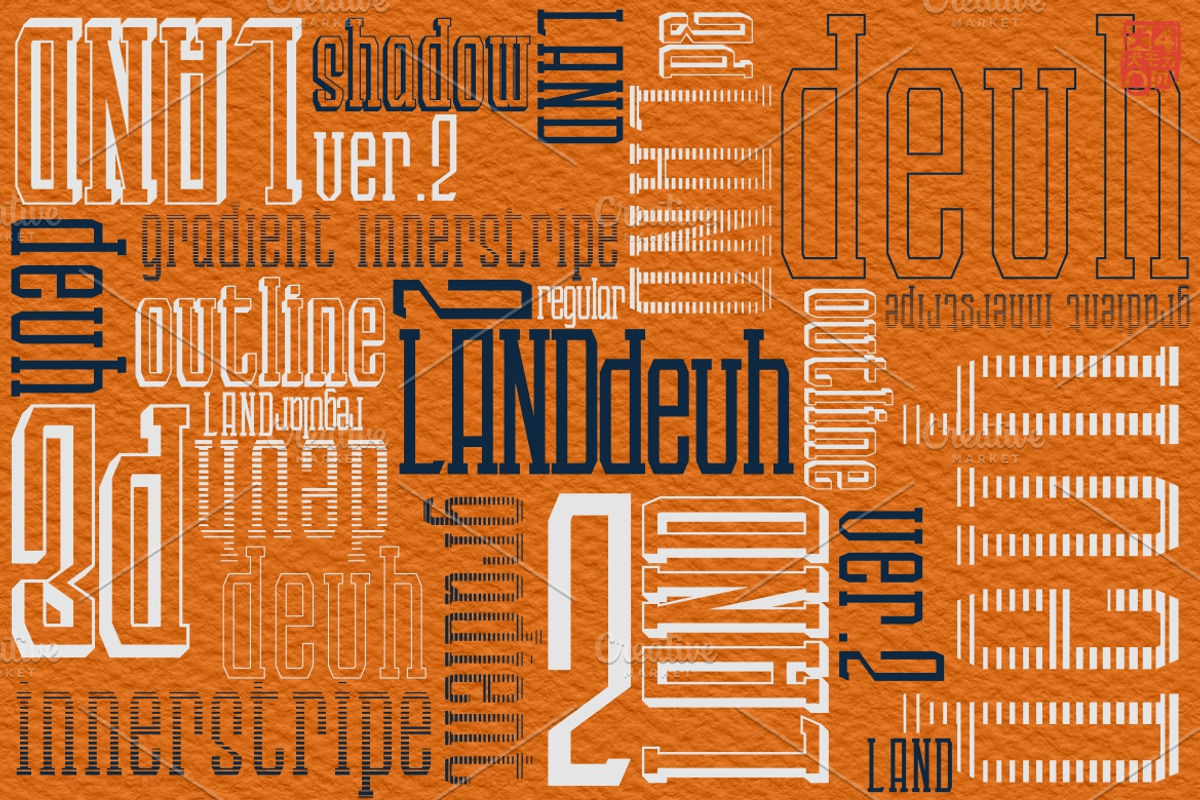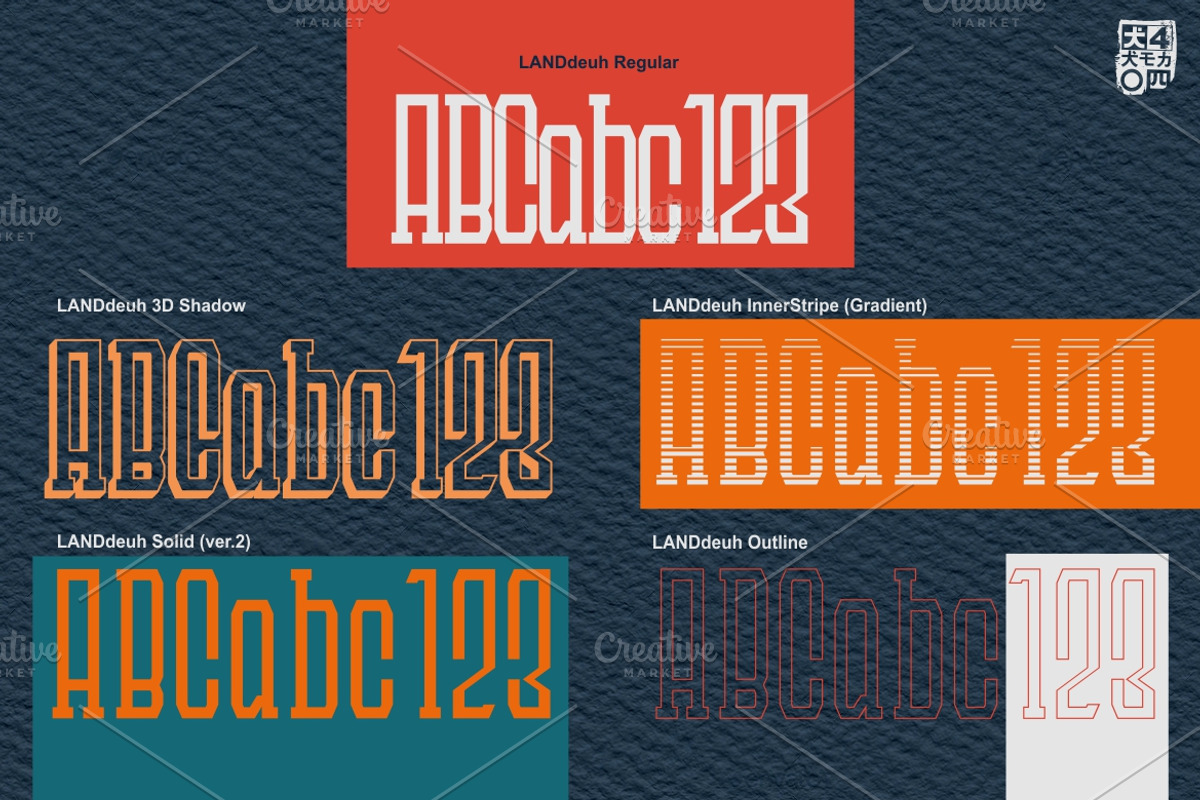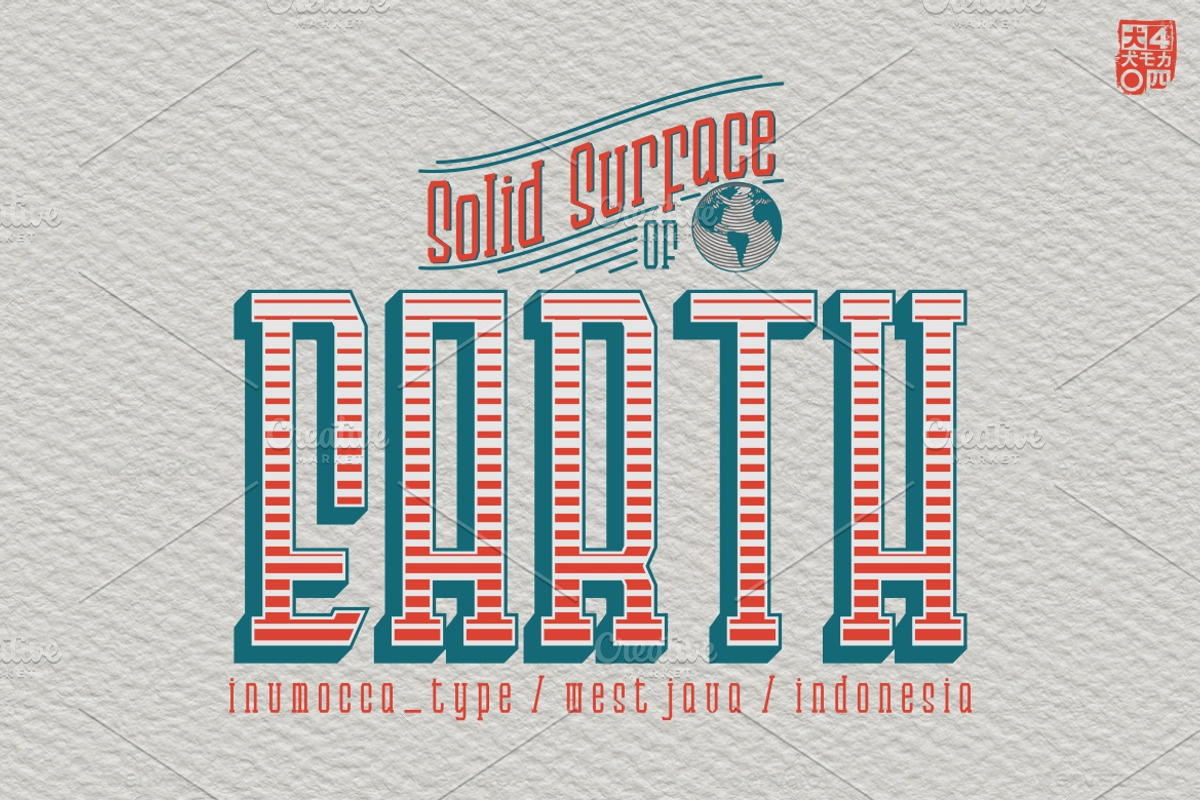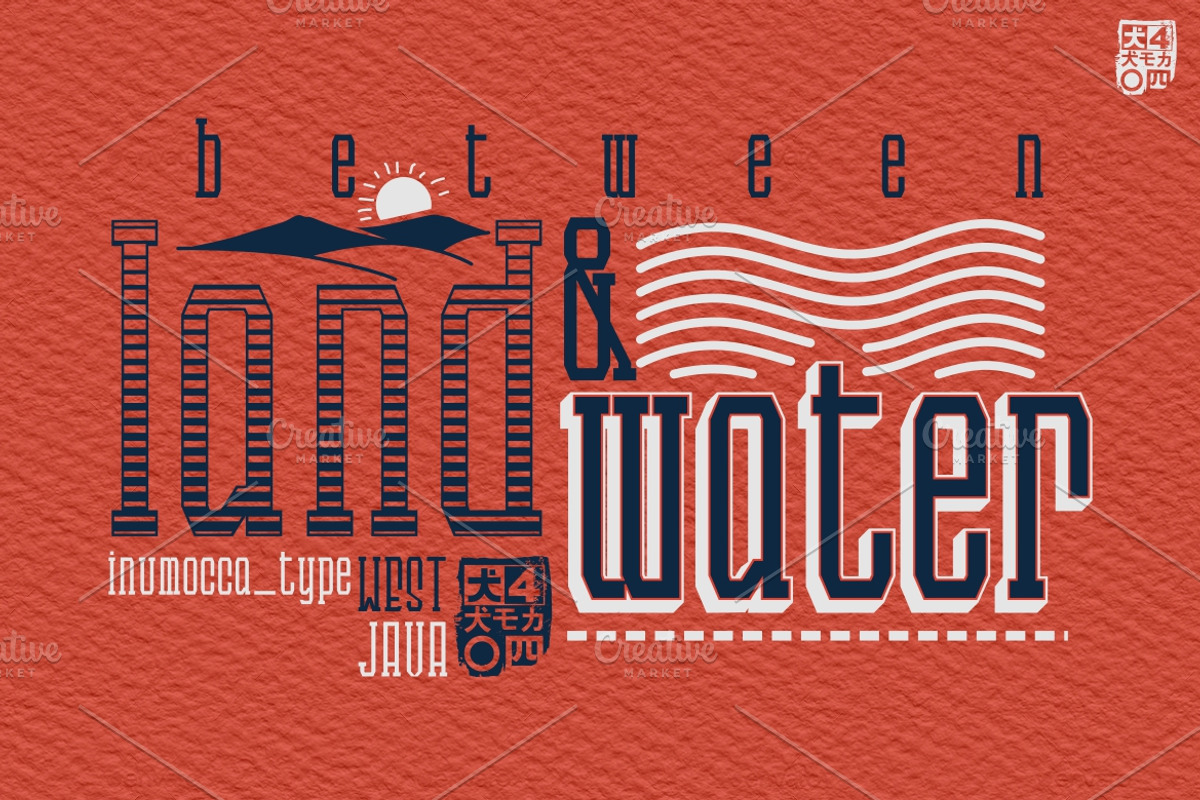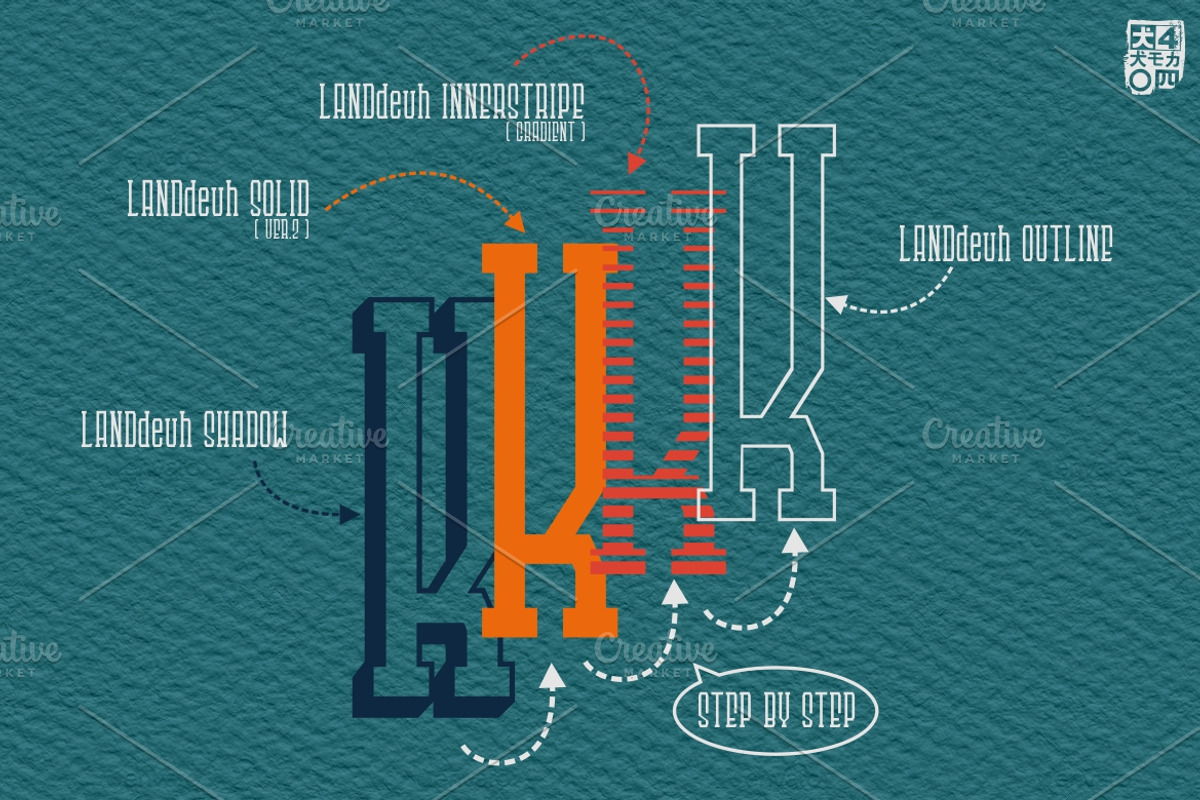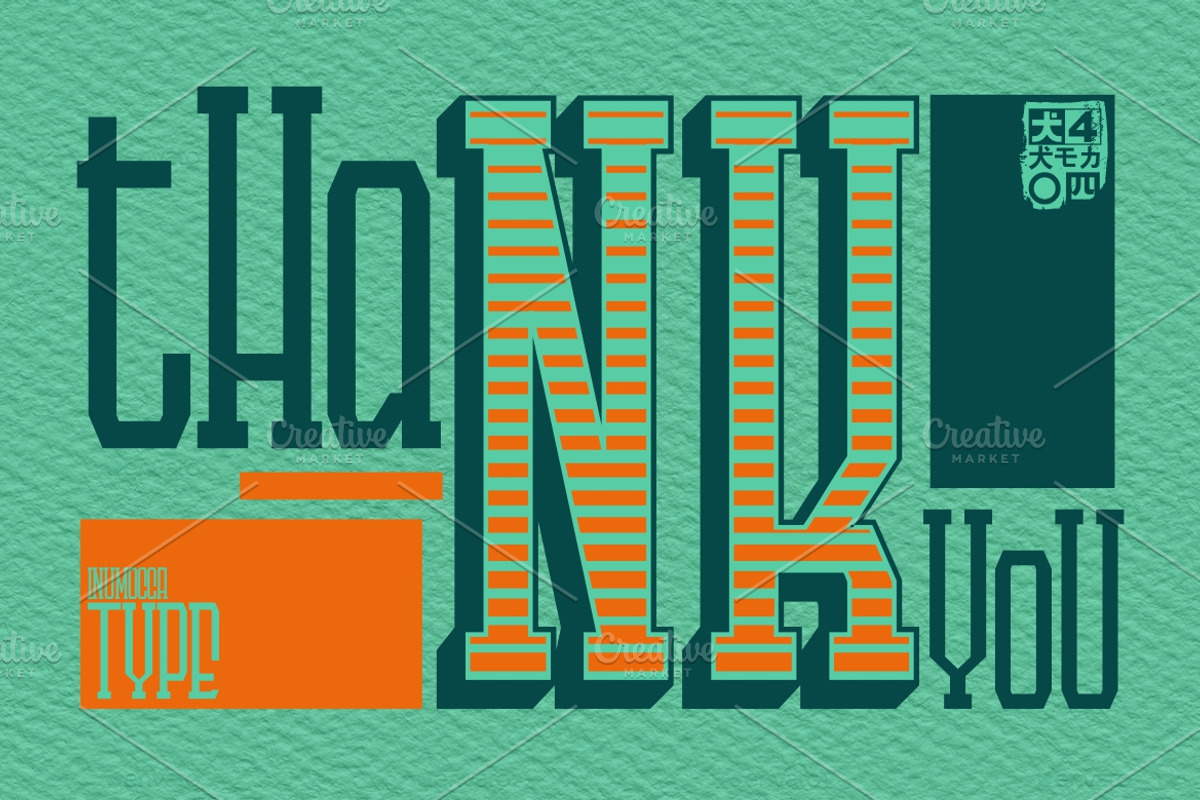
LANDdeuh (Layered font Family)
LANDdeuh Typeface, The LAYERED font Family with 5 variants, the variants are combine with different colors, its EASY to use enjoy with your project
LANDdeuh Shadow (3D Shadow)
LANDdeuh Ver.2 (Replete/solid)
LANDdeuh Gradient (innerstripe)